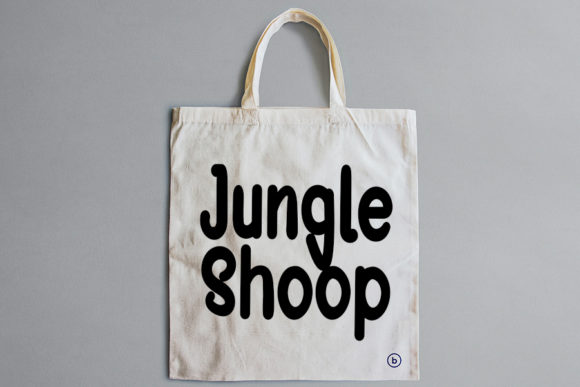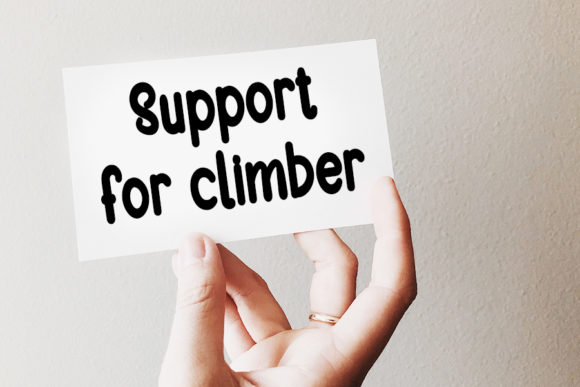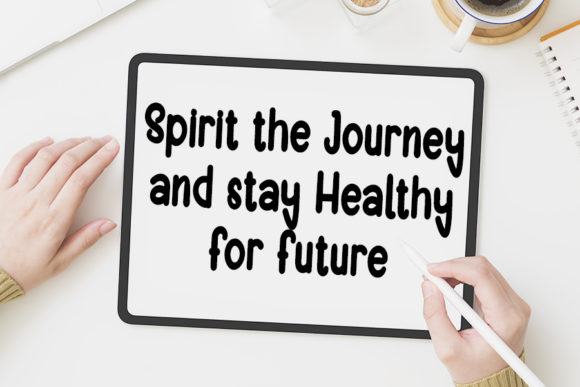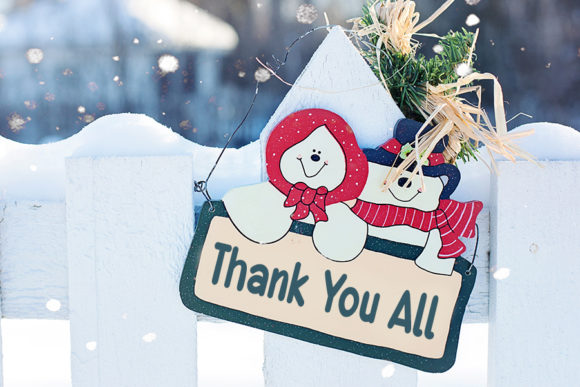
Introduction to Journey for Jungle Font
Journey for Jungle is a simple, all round and clean sans serif font.
Its flexibility and neat style will brighten up each of your designs Have fun with this cool font and explore its endless variations.
Key Features of Journey for Jungle Font